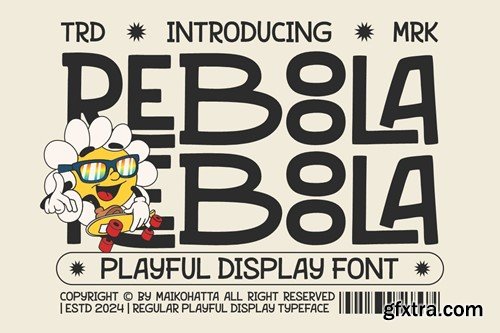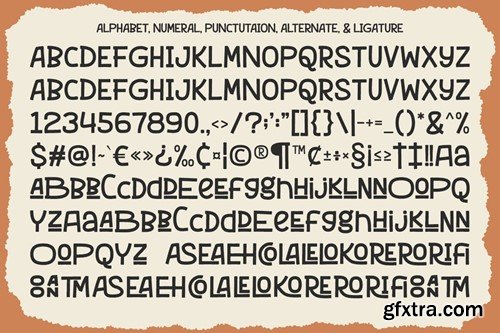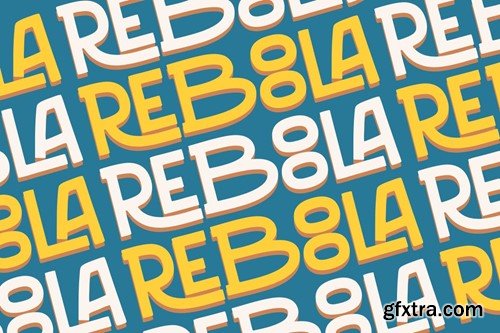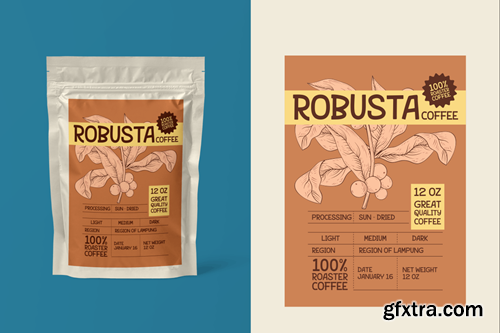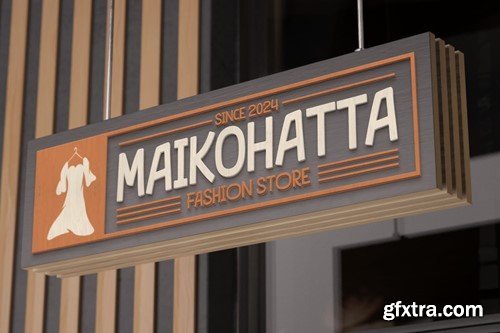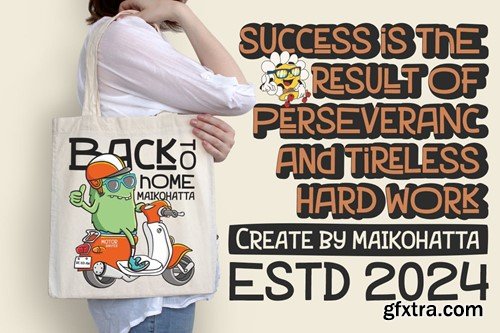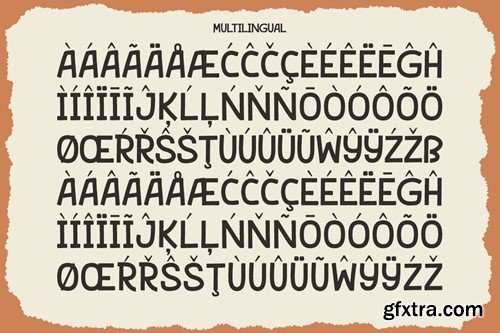
柔芭拉 - 玩趣展示字体 3JS6L7C
Reboola - Playful Display Font
Introducing our new product Reboola - Playful Display Font This font is characterized by reflecting joy, cheerfulness and a light atmosphere with a handwritten style often found in comics or cartoons. This font is perfect for projects that want to highlight elements of playfulness and fun, such as poster designs, invitation cards, comics, or promotional materials aimed at a younger audience or those looking for a fun feel. available